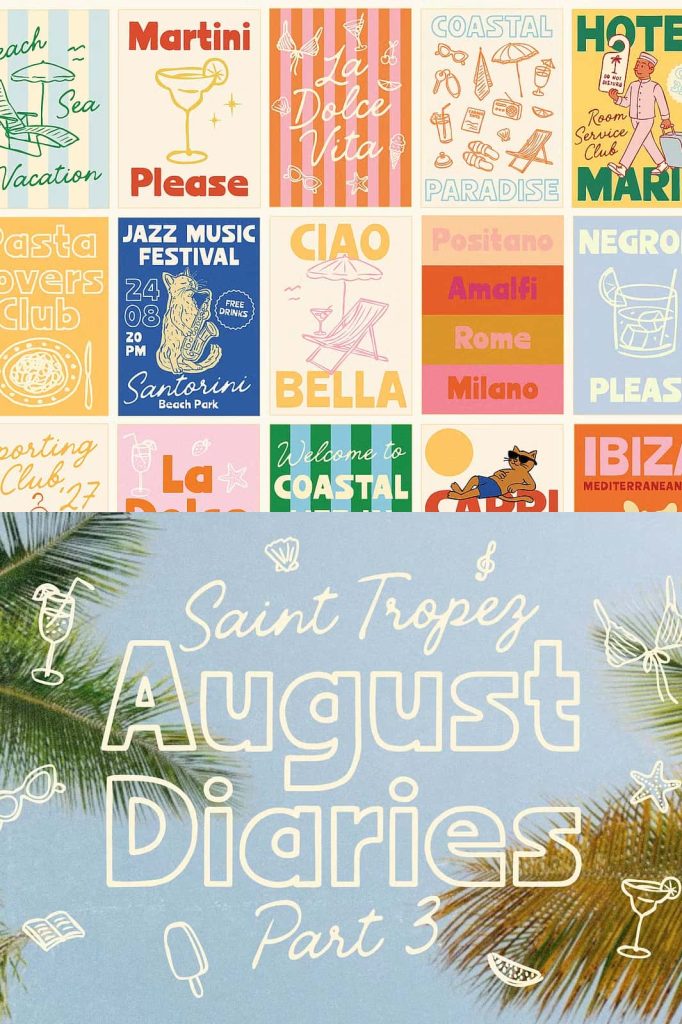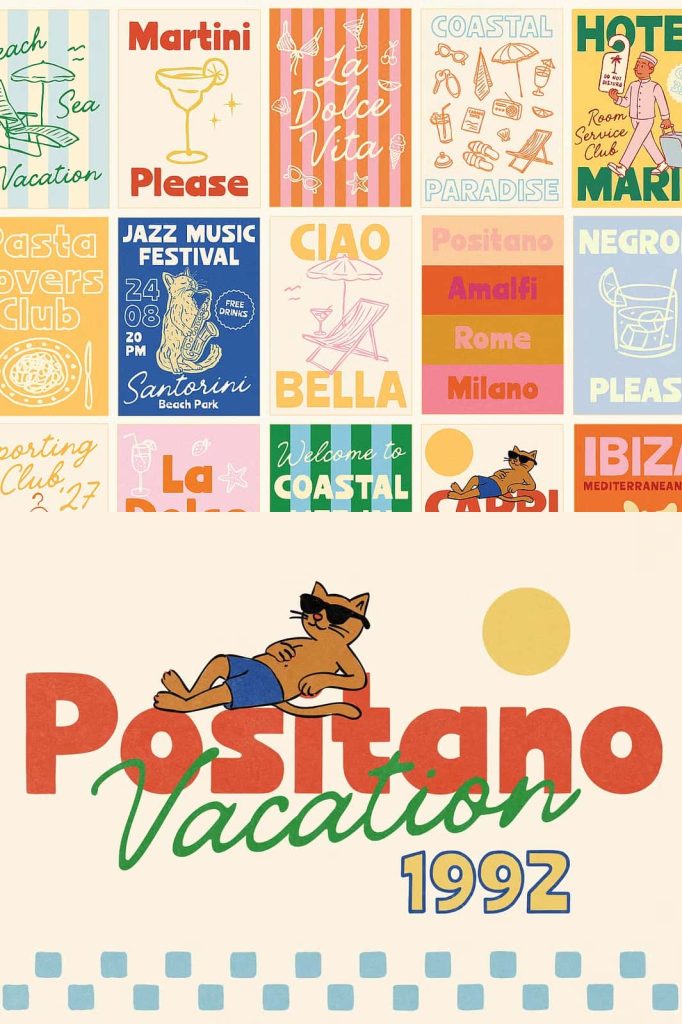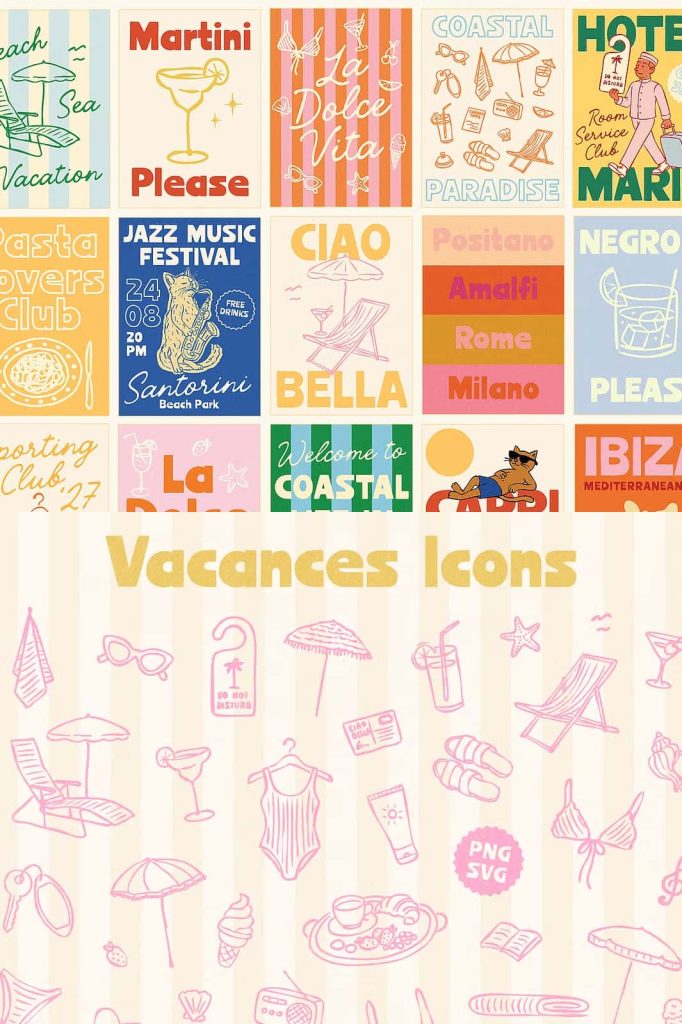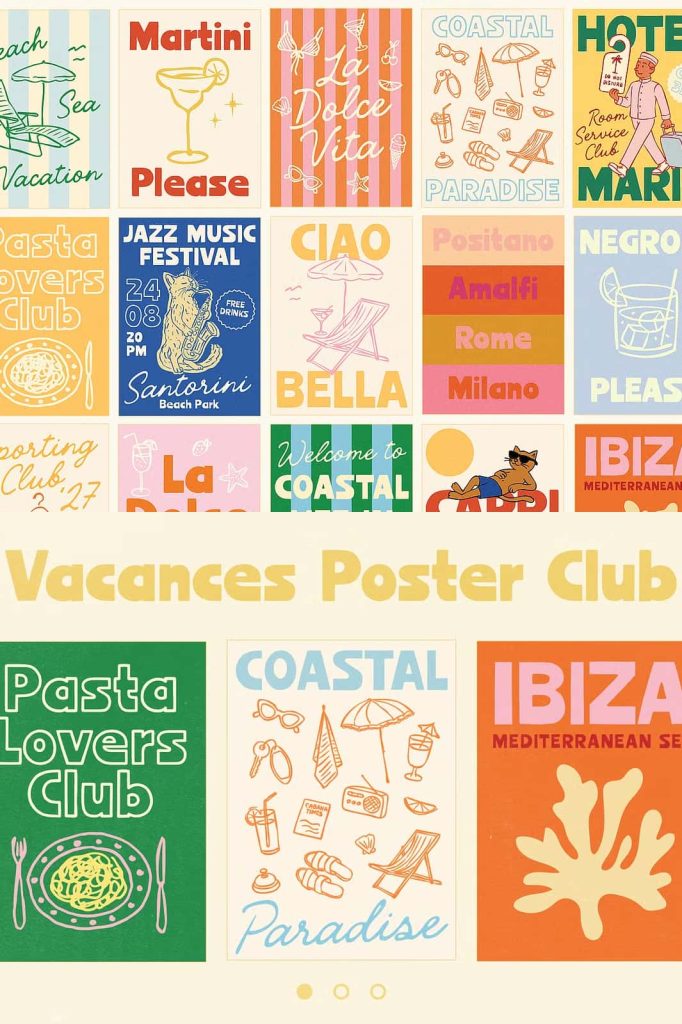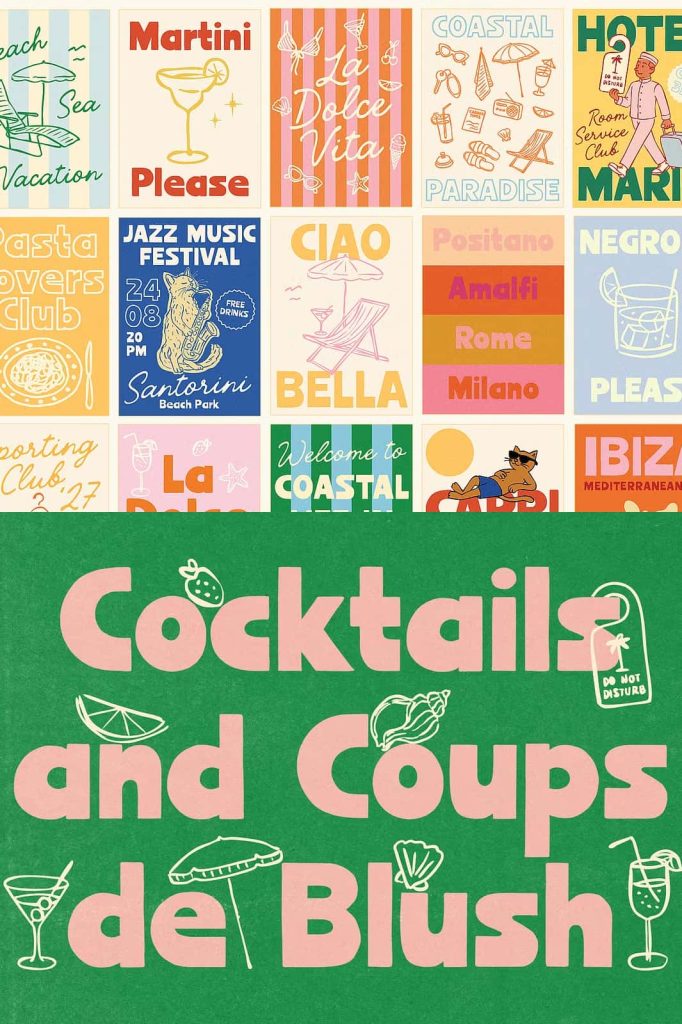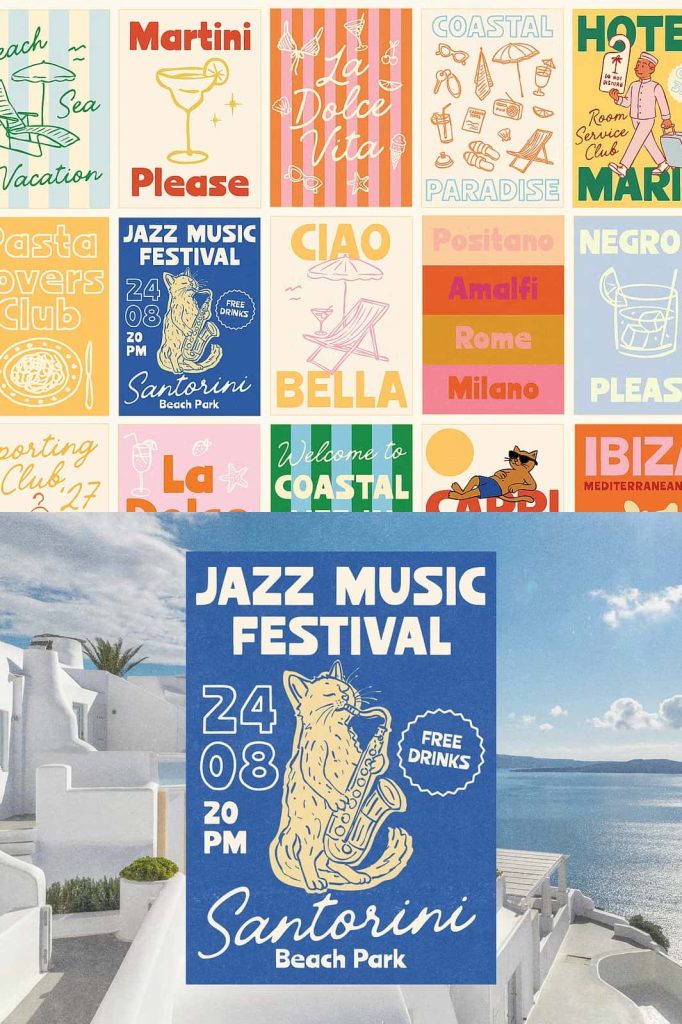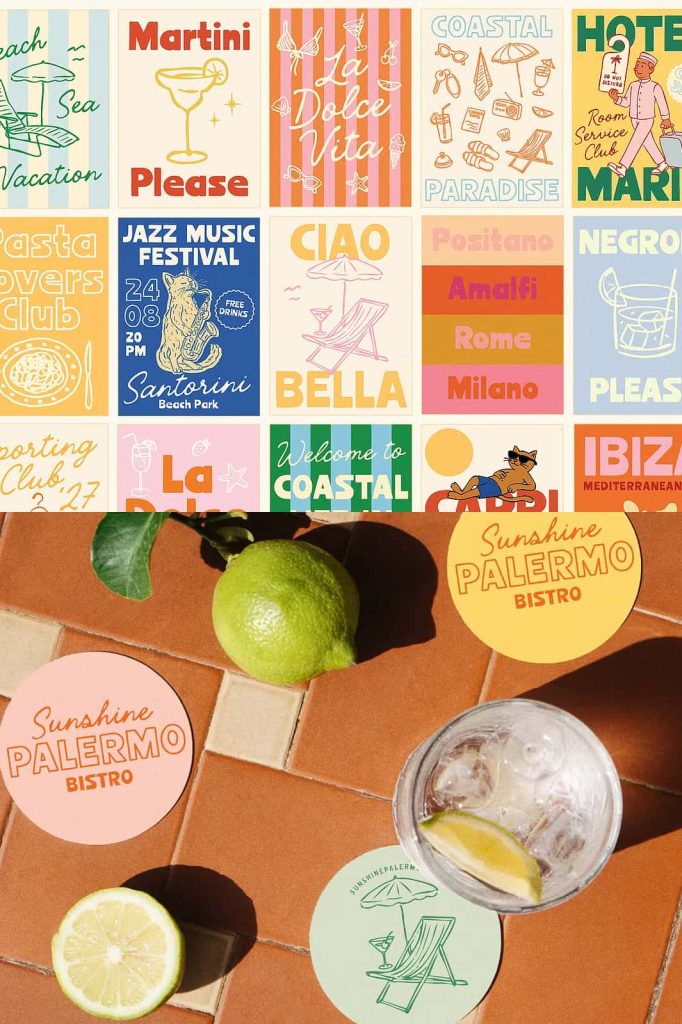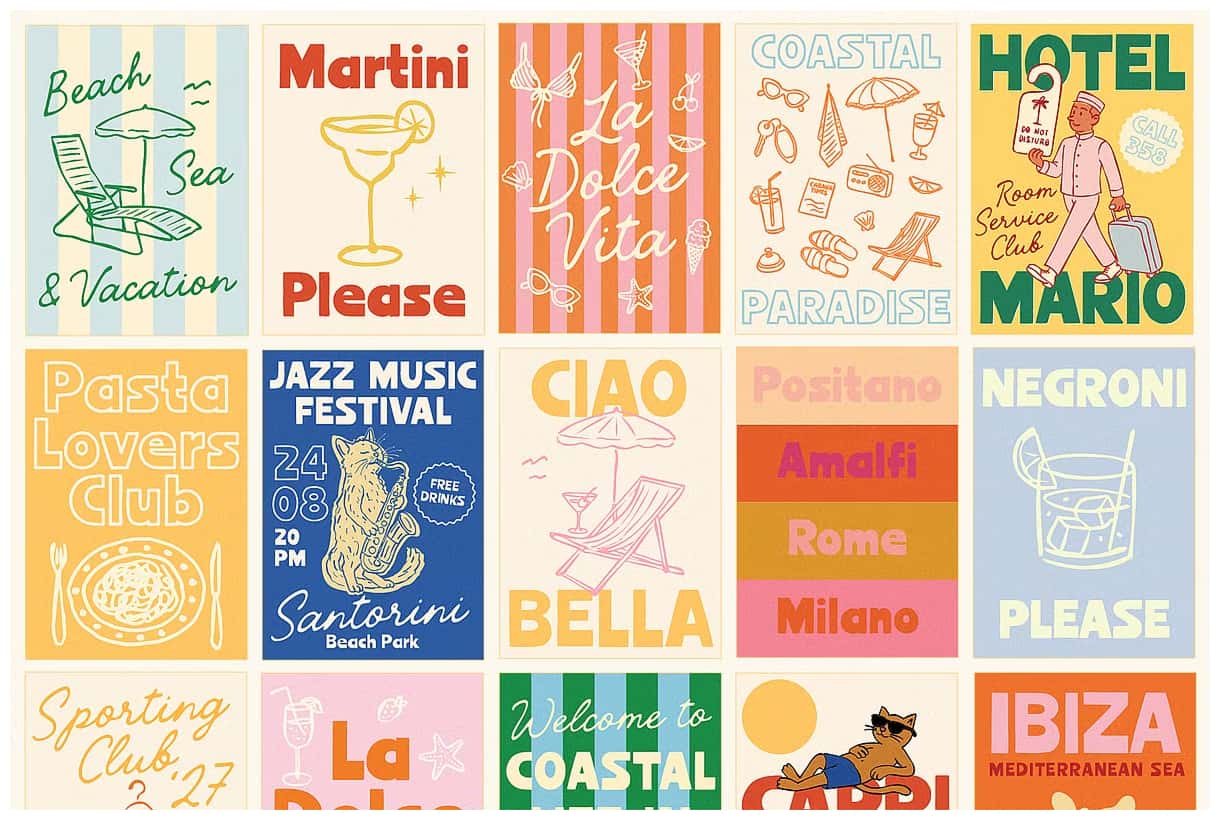
Vintage Modern Font Family: Where Retro Elegance Meets Modern Design
Vintage Modern Font Family is what happens when timeless typography meets today’s creative energy. This typeface collection draws inspiration from classic European poster design — the kind that graced old French and Italian magazine covers, handwritten café menus, and coastal hotel signage that still feels effortlessly stylish decades later. It’s a perfect blend of nostalgia and modern sophistication, created for designers who want to infuse their projects with history, warmth, and character.
A Revival of Classic Retro Style
Inspired by the visual language of the 1960s and 1970s, the Vintage Modern Font Family captures the essence of elegant hand lettering and early print design. Its forms are rooted in the spirit of vintage craftsmanship — subtle serifs, refined curves, and balanced proportions that pay homage to mid-century aesthetics. Yet, it’s carefully updated for contemporary use, making it a timeless tool for brands and creatives seeking a bold, expressive typographic voice.
Designed for Today’s Creative World
While it takes cues from vintage typography, this font family is made for modern design needs. It’s versatile enough to shine in branding, packaging, editorial layouts, websites, and print materials. Whether used in fashion campaigns, lifestyle branding, or travel magazines, it communicates sophistication with ease. Each letterform feels intentional and dynamic — bold enough to capture attention, yet elegant enough to remain timeless.
Inspired by the French and Italian Riviera
Imagine the sunlit elegance of the Mediterranean coast, the romantic lettering on seaside hotel signs, and the vibrant charm of handwritten café menus. The Vintage Modern Font Family channels that same relaxed refinement. It reflects an era when design was expressive yet balanced — a time when typography had personality. The result is a font that feels alive, warm, and nostalgic, yet still relevant to contemporary visual storytelling.
Perfect for Branding, Posters, and Packaging
This typeface family excels in bold branding and display applications. Use it to design packaging that feels artisanal, posters that radiate creative flair, or logos that combine vintage allure with modern clarity. The Vintage Modern Font Family adapts beautifully to a range of tones — from chic and sophisticated to casual and inviting. Its clean lines and subtle imperfections evoke the tactile quality of hand-lettered signage, giving every project a crafted, human touch.
Elegance That Stands the Test of Time
Typography has the power to set mood and identity — and this font family delivers both. It combines the expressive qualities of retro poster typography with the precision of modern digital design. The result is a typeface that feels simultaneously nostalgic and forward-looking. It’s built to perform across print, web, and packaging, retaining crisp detail and readability at every scale. Its versatility makes it ideal for designers, art directors, and brand storytellers who appreciate the balance between vintage charm and modern utility.
Features and Flexibility
The Vintage Modern Font Family offers multiple styles and weights, allowing designers to create visual hierarchy and contrast with ease. Each style maintains the same DNA — refined structure, subtle texture, and timeless grace. The font also includes ligatures, stylistic alternates, and multilingual support, expanding its creative possibilities. From high-end branding projects to lifestyle publications, it brings refinement and personality to every design context.
Why Choose Vintage Modern Font Family
- Retro Inspiration: Captures the beauty of 20th-century French and Italian typography.
- Modern Versatility: Updated design for branding, editorial, and digital use.
- Elegant Craftsmanship: Handcrafted details for an authentic, timeless aesthetic.
- Multilingual Support: Ideal for global brands and international projects.
By choosing Vintage Modern Font Family, you embrace the best of both worlds — the nostalgia of retro design and the clarity of contemporary typography. It’s more than a font; it’s a storytelling tool that captures emotion, place, and heritage through design. Whether on posters, product labels, websites, or social media, it transforms words into timeless works of art.
Bring Retro Elegance Into the Modern Age
Let your designs tell a story of classic beauty and modern sophistication with Vintage Modern Font Family. Inspired by the effortless glamour of coastal Europe, it brings visual richness and charm to every project. Whether you’re crafting branding for a boutique hotel, a luxury product line, or an editorial feature, this typeface adds authenticity and depth. Step into the world where vintage elegance meets modern creativity — and let your typography make history again.